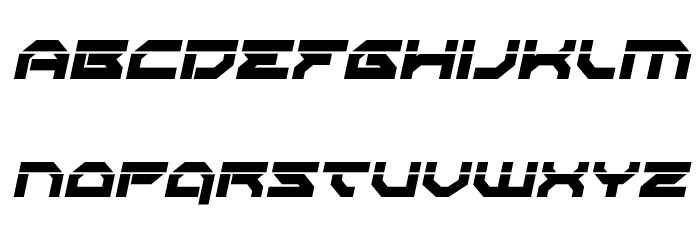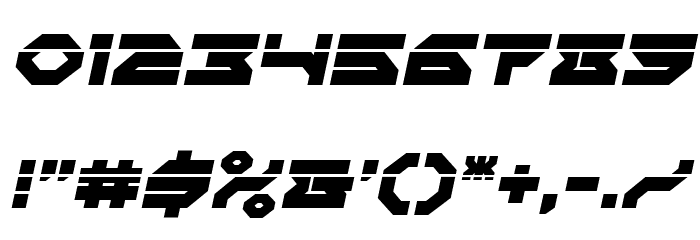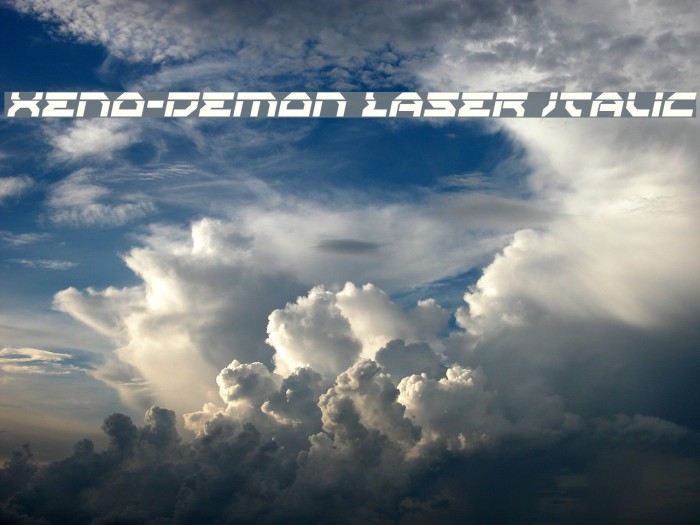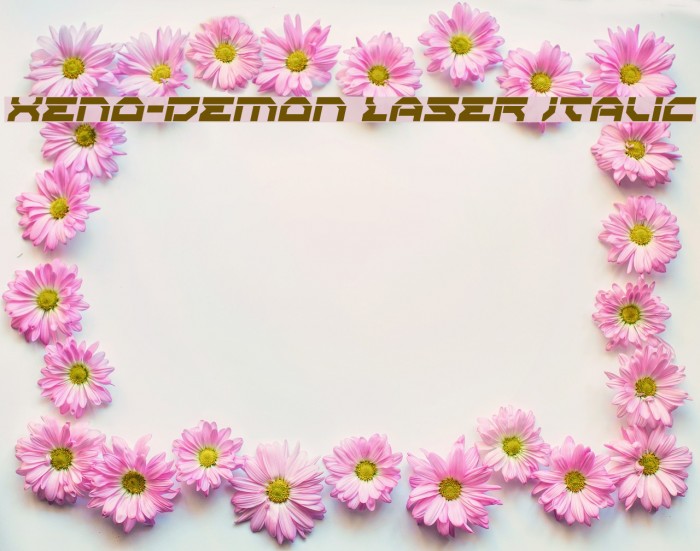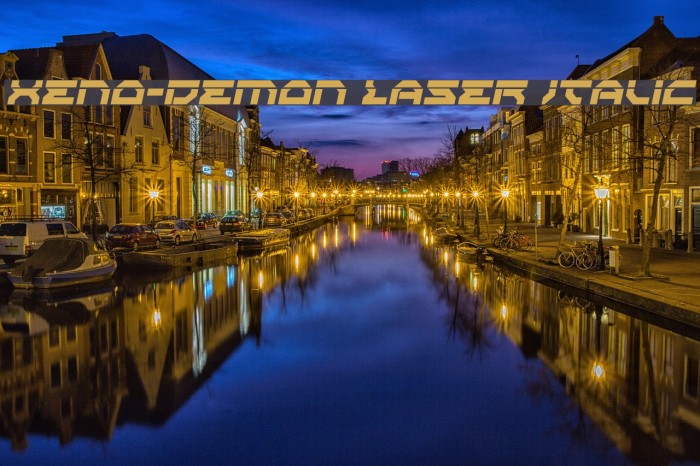
Xeno-Demon Laser Italic Font
This font features a futuristic and angular design, characterized by sharp edges and geometric shapes. Each letter is crafted with a distinct slant, giving it an italicized appearance that enhances its dynamic and energetic feel. The uppercase and lowercase letters maintain a consistent style, with bold strokes and a unique cut-out pattern that adds depth and interest. Numbers and special characters follow the same design principles, ensuring a cohesive look across all glyphs. The font's boldness and distinctive style make it stand out, suitable for projects that require a modern and edgy aesthetic.
A futuristic, angular font with bold, italicized characters and geometric shapes.
- Proposed Projects: Ideal for sci-fi themed designs, video game titles, tech branding, and futuristic posters.